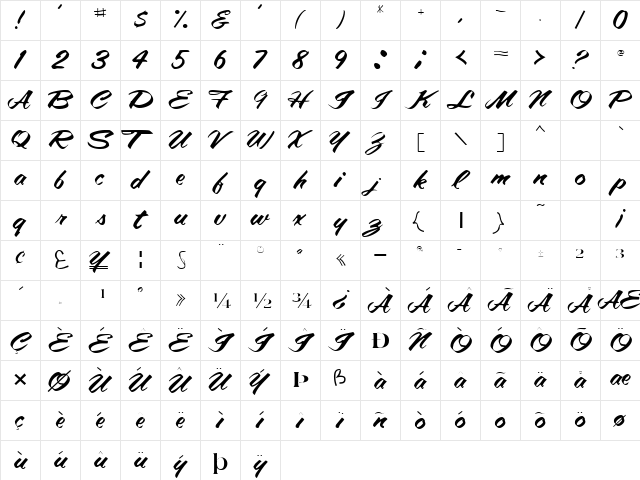
AmalieScriptSSK Regular
Design Context for AmalieScriptSSK Typeface
AmalieScriptSSK flows with the natural rhythm of handwritten lettering, making it ideal for designs that call for warmth and personal expression.
Font Pairing: Combine AmalieScriptSSK with a simple geometric sans for maximum contrast — the tension between flowing curves and clean structure is a classic typographic pairing.
Pro Tip: Use AmalieScriptSSK for short runs of text — names, titles, or taglines. Extended body copy in script faces tires the eye quickly.